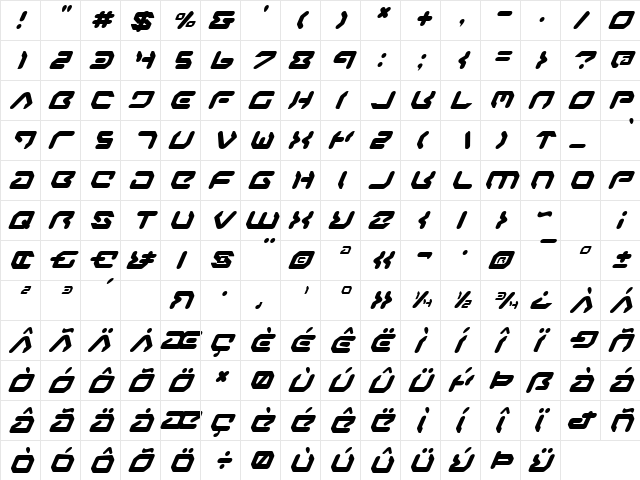
Airstrip One Italic Italic
Design Context for Airstrip One Italic Typeface
Airstrip One Italic is a composed and adaptable typeface that performs quietly and consistently across a wide range of design contexts. The slanted form adds forward momentum and visual energy.
Pro Tip: Try Airstrip One Italic for annotation and caption copy alongside an upright companion — the contrast in angle creates a dynamic but ordered typographic system.